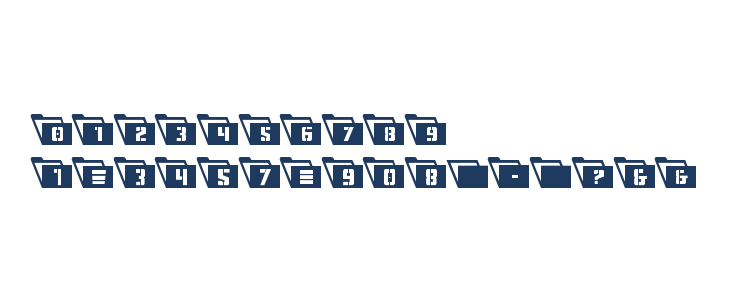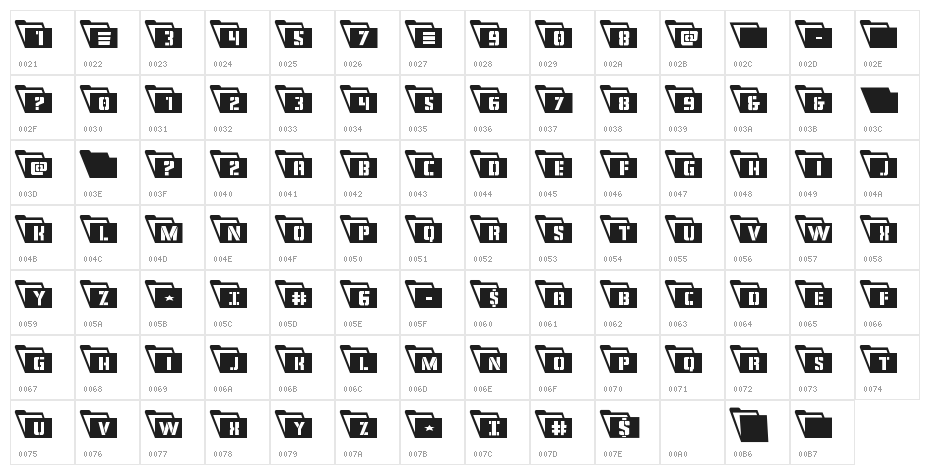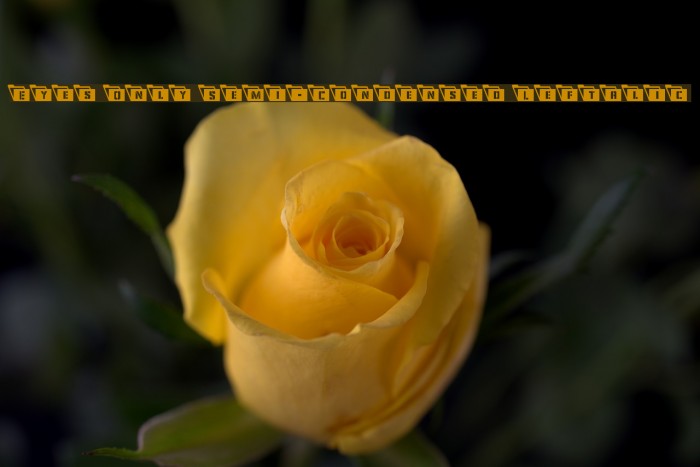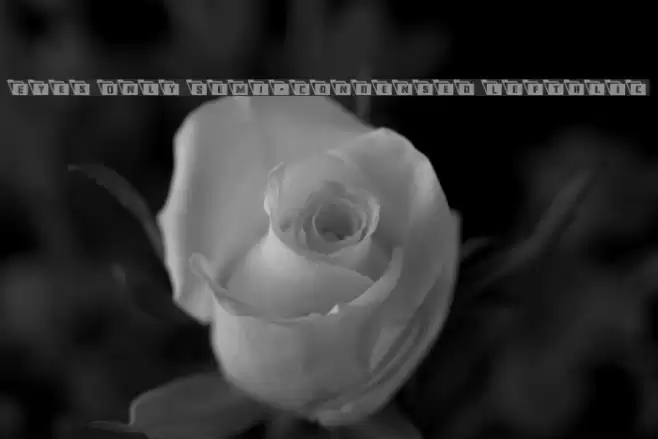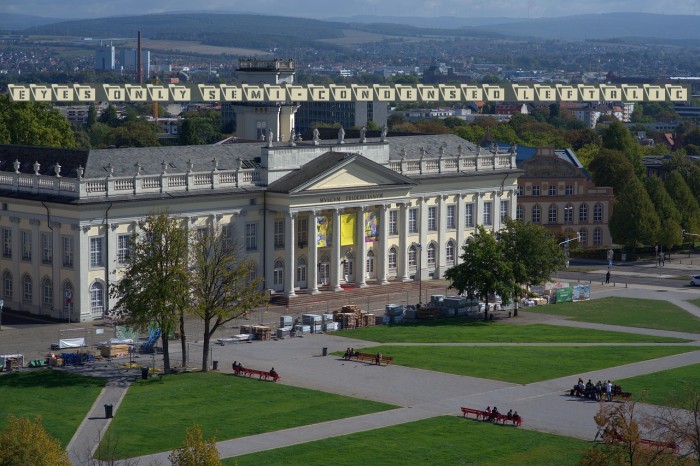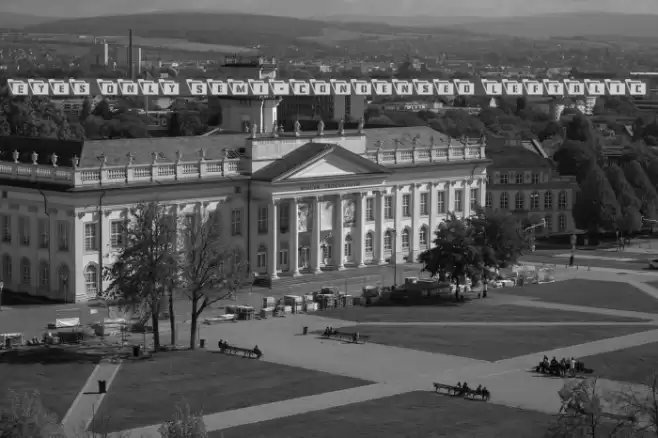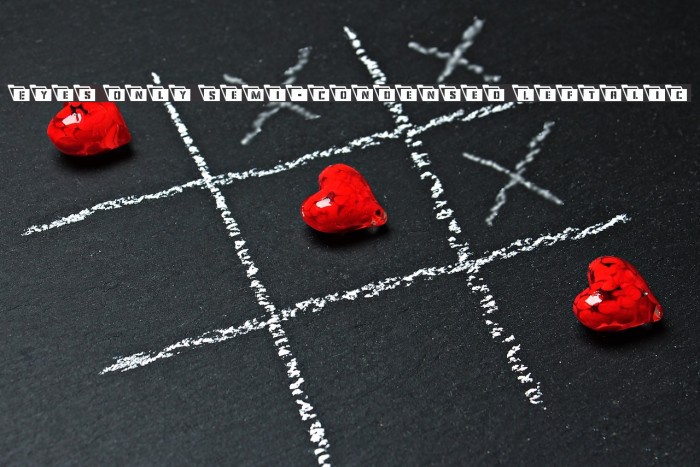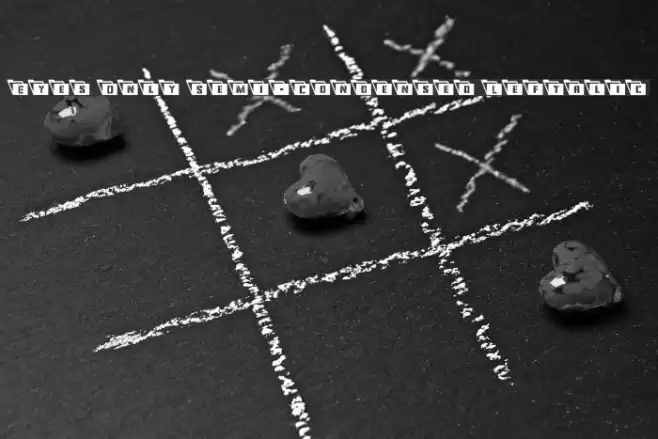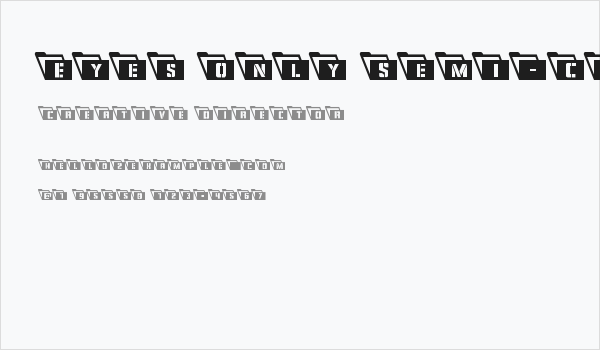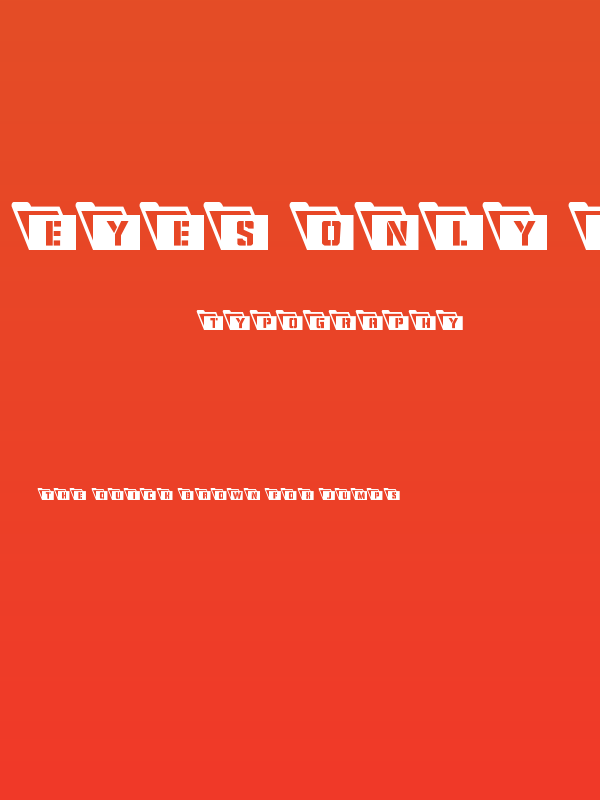
Eyes Only Semi-Condensed Leftalic Font
Eyes Only Semi-Condensed Leftalic Description
This font features a bold, semi-condensed style with a unique left-leaning italic slant. Each character is enclosed within a folder-like shape, giving it a distinctive and modern appearance. The boldness of the letters ensures high visibility, making it suitable for attention-grabbing designs. The semi-condensed width allows for more characters per line without sacrificing readability. The left-leaning slant adds a dynamic and forward-moving feel, making it ideal for innovative and contemporary projects.